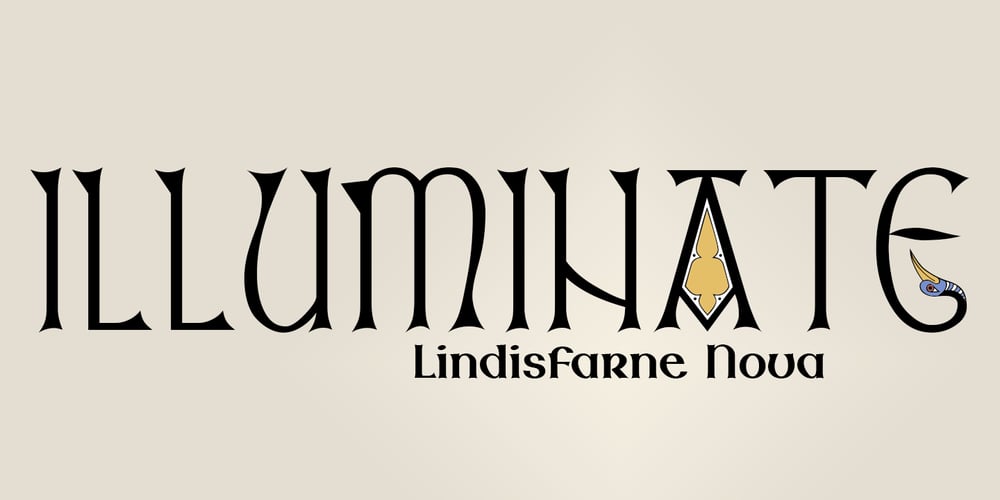
Lindisfarne Nova BT Font Family was designed by Harry Pears, Margaret Layson and published by Bitstream. Lindisfarne Nova BT contains 2 styles and family package options. Lindisfarne Nova is an uncial-like design based on the script found in the Lindisfarne Gospels. Created by Harry Pears and Margaret Layson, it is available in two weights, regular and bold. Lindisfarne Nova is Harry’s first completed font. There are also two companion styles, Lindisfarne Nova Incised and Lindisfarne Runes.